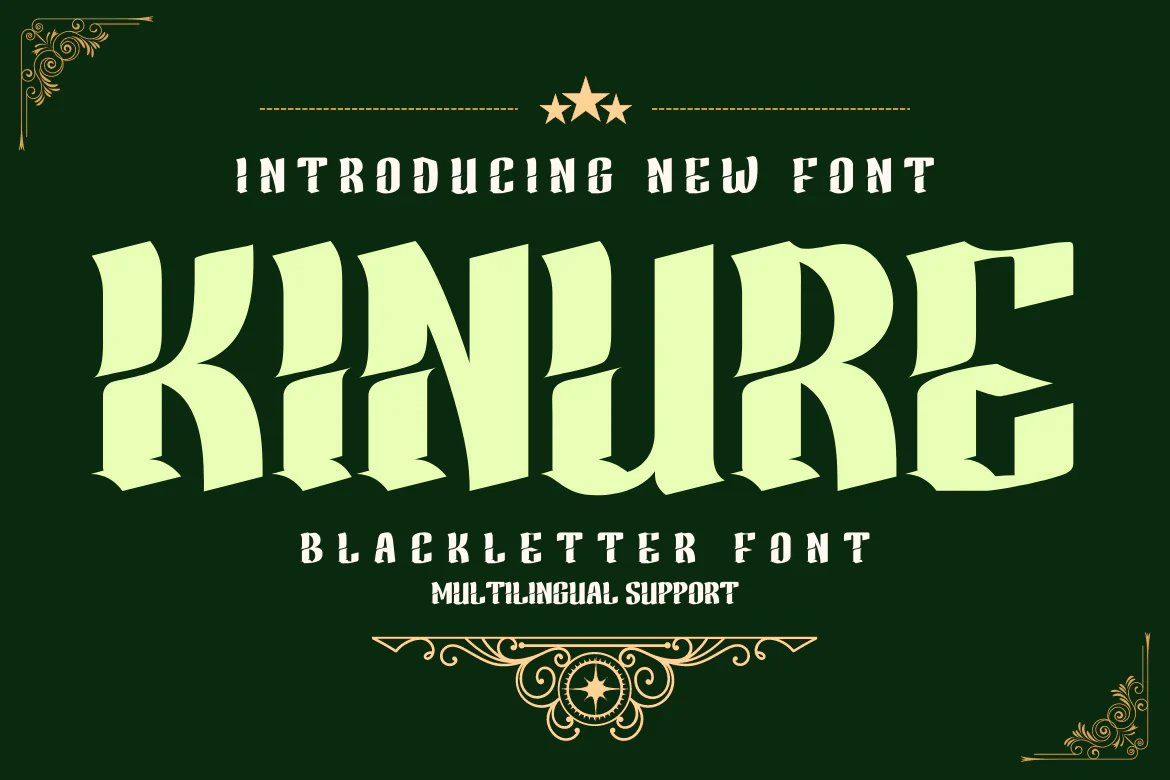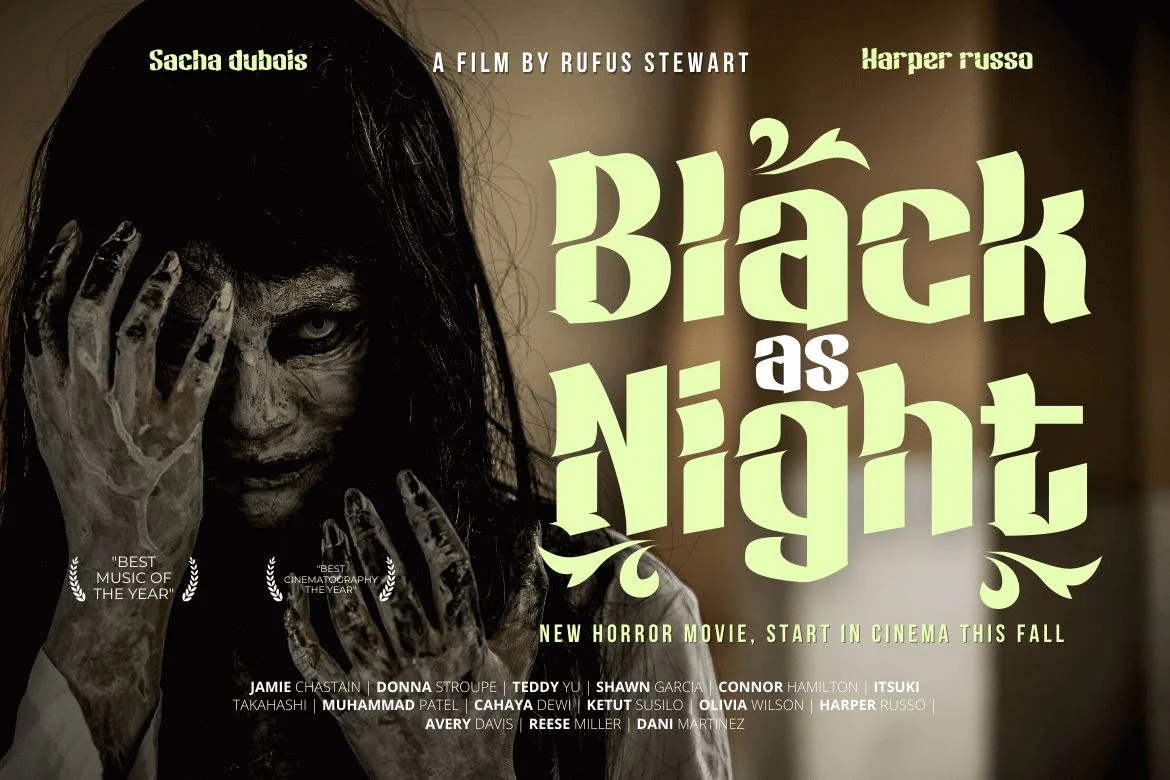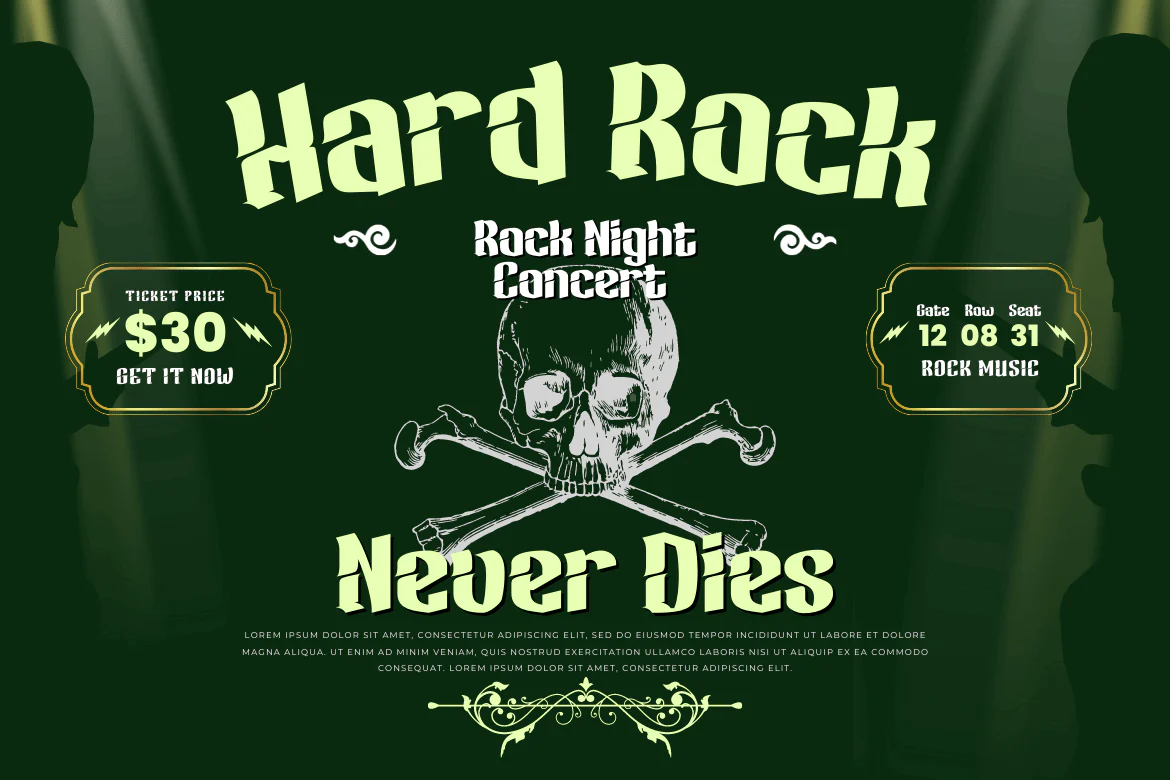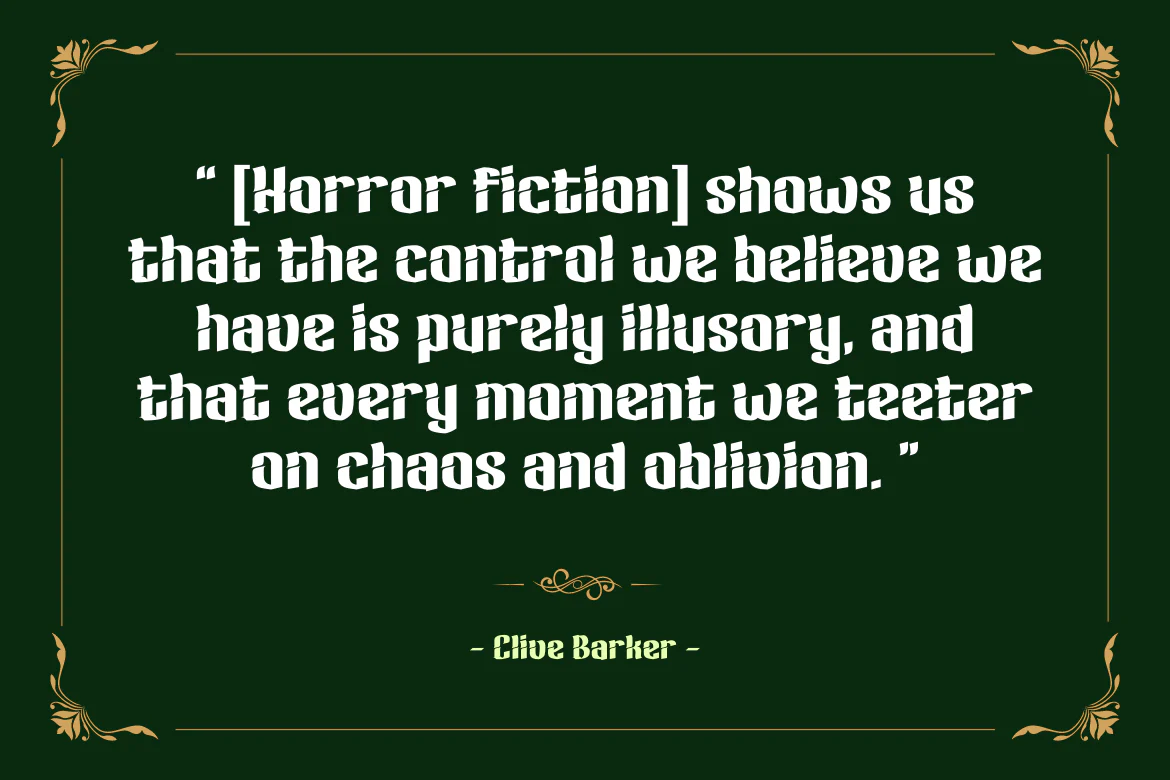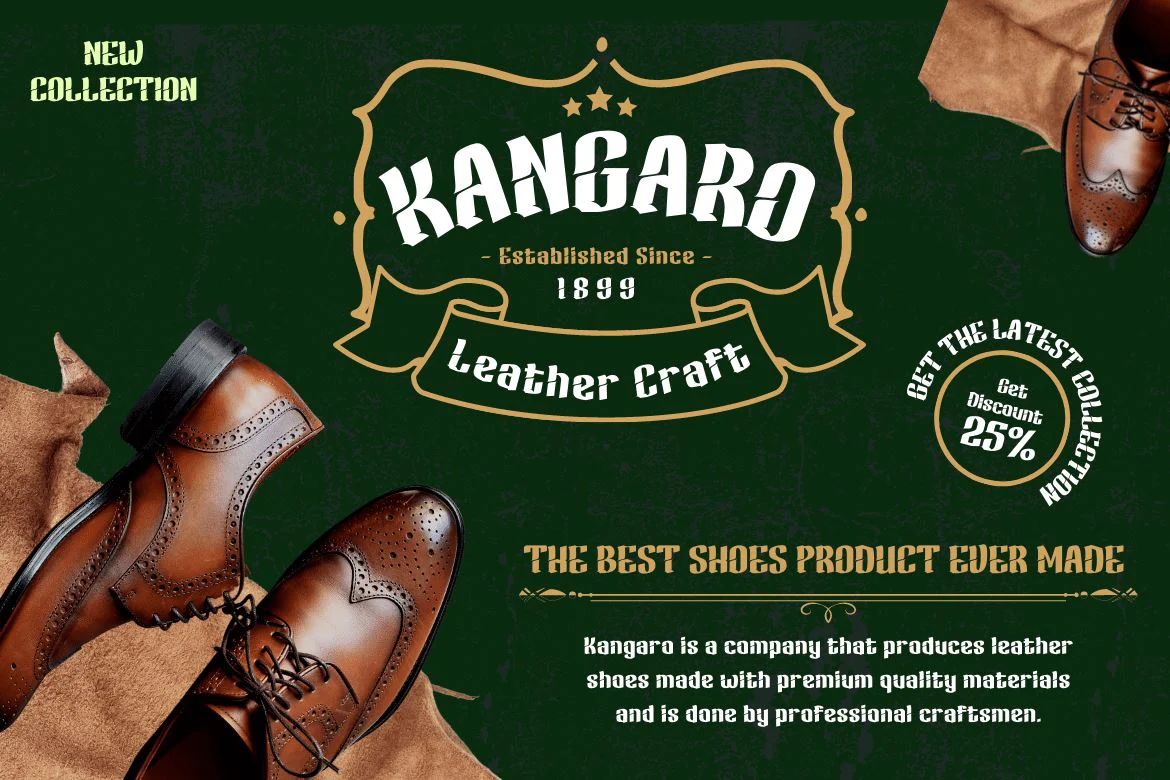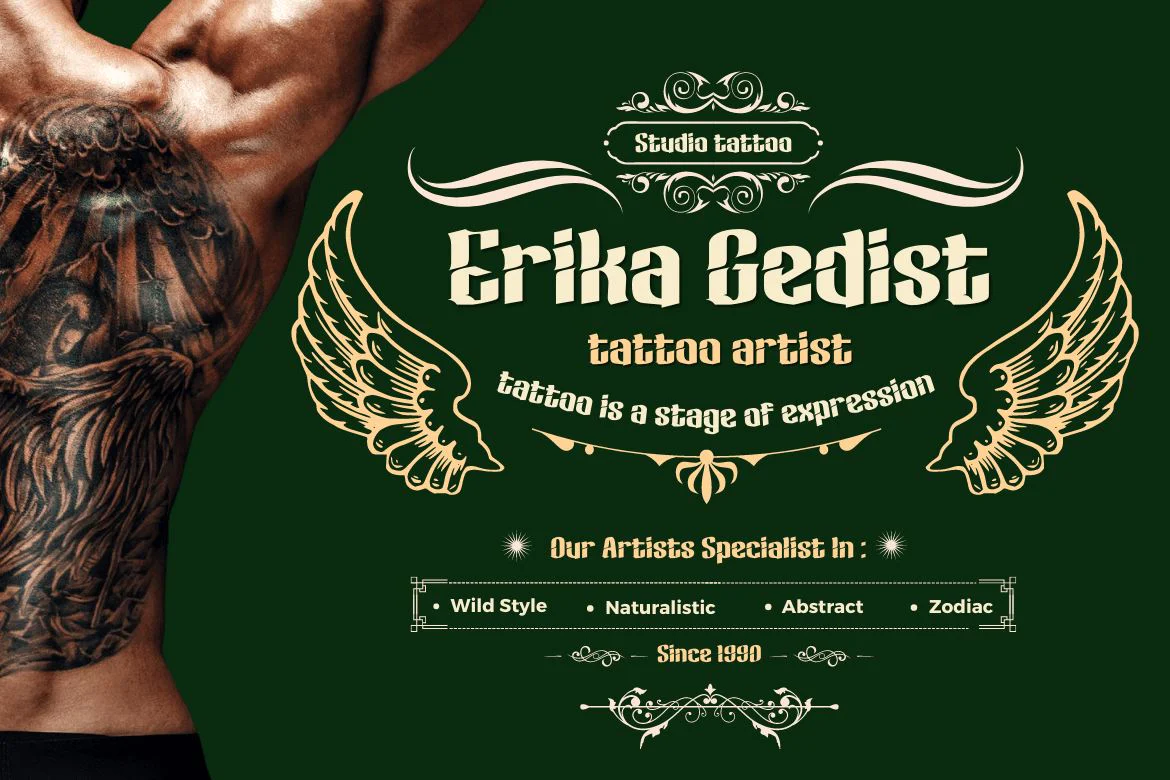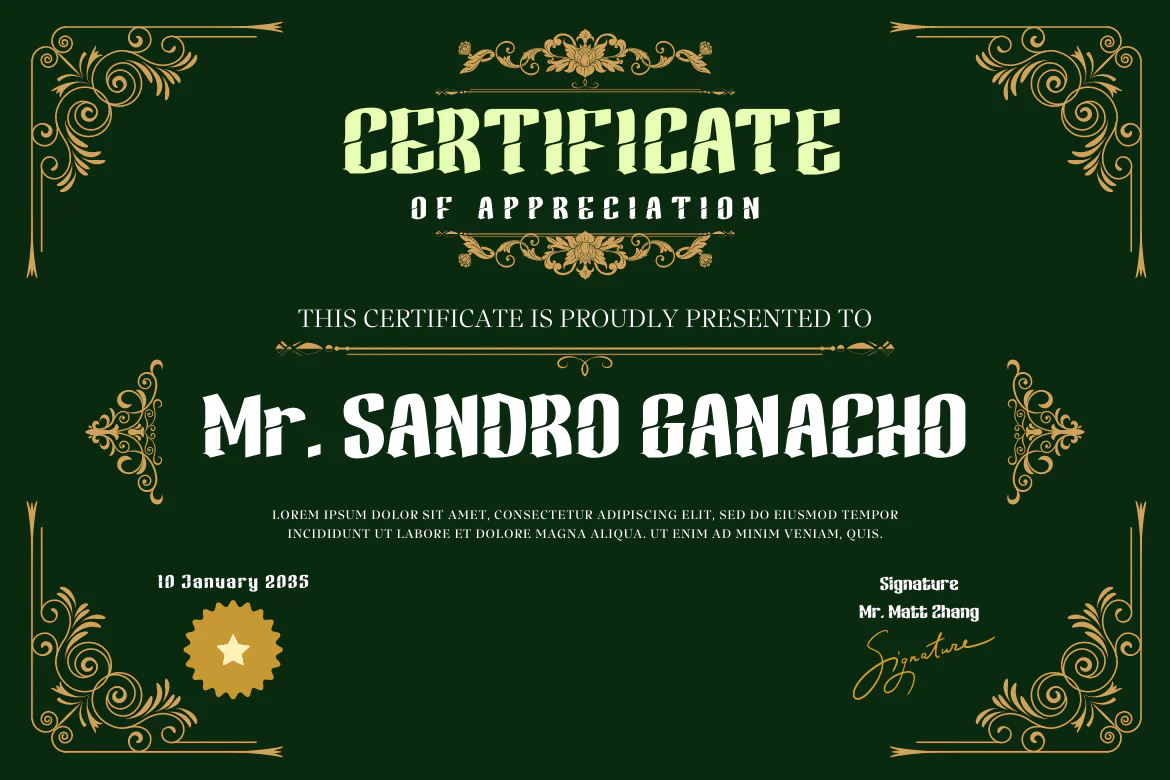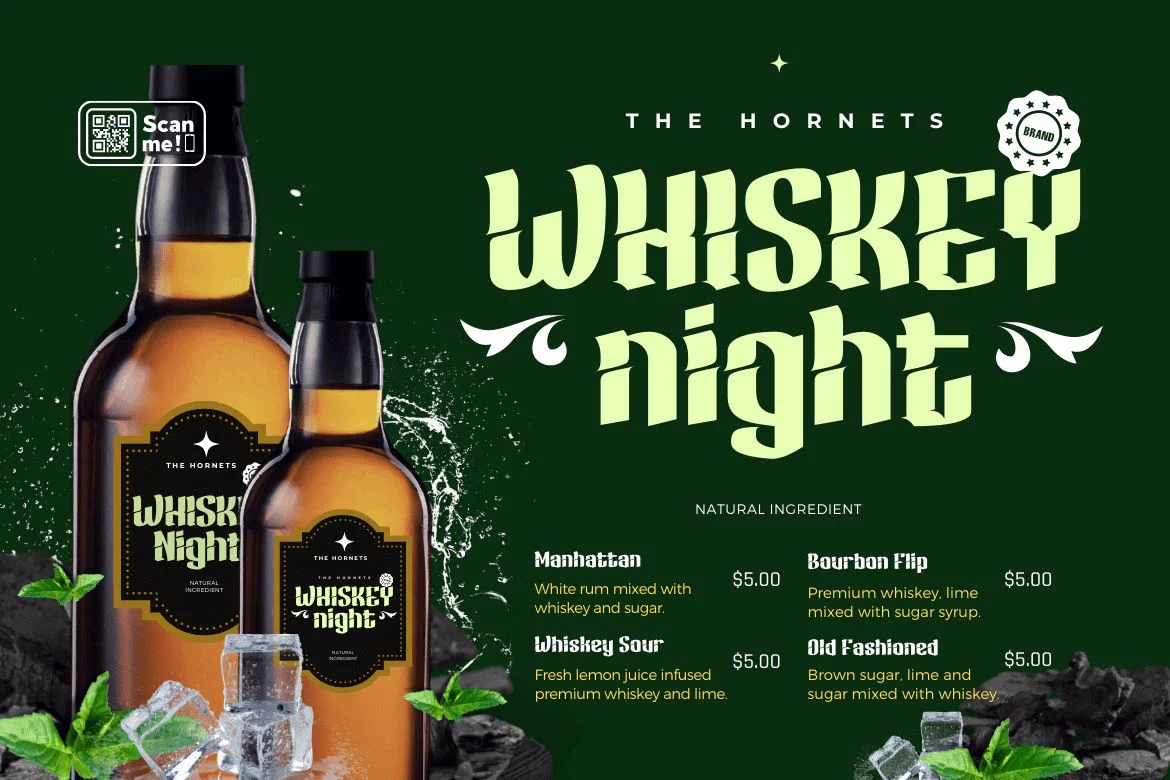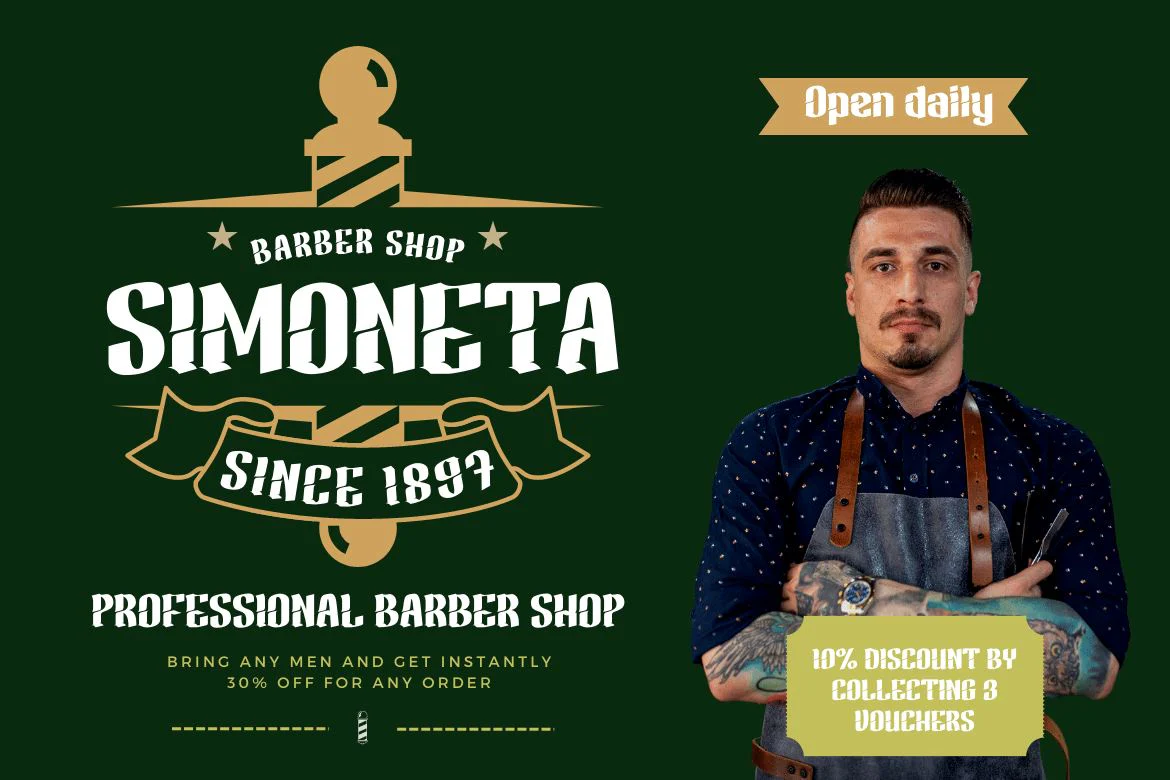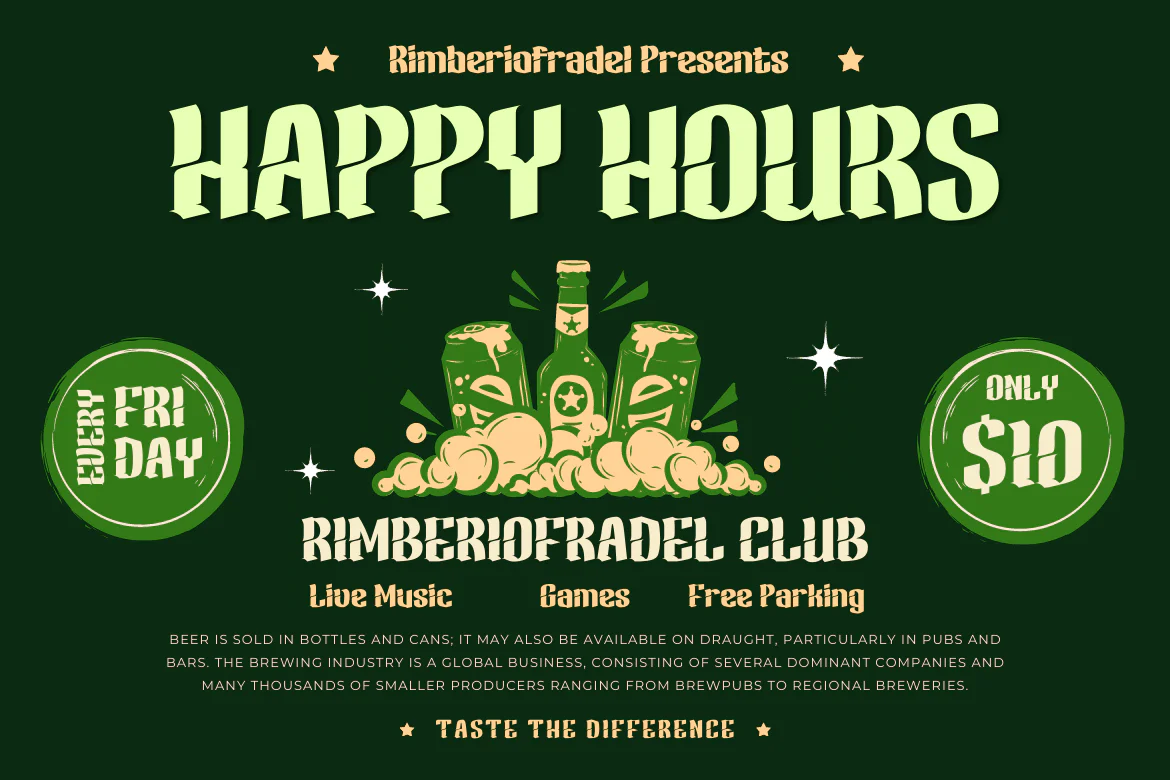
KINURE Blackletter Font
Look no further KINURE from Blackletter for the perfect Gothic font! This is a professional-grade font that you should use to design Labels, Retro, Stamps, Badges, Oktoberfest Posters, or anything else. It’s perfect for any kind of project that needs a bit of a gothic touch. Plus, it comes in a variety of beautiful, harmonized shapes so you can use the perfect word for your project.
Whether you’re looking for a font for your logo, label, or badge, or you’re looking for a font for your latest music video or movie, KINURE Blackletter is the way to go!
Look no further KINURE from Blackletter for the perfect Gothic font! This is a professional-grade font that you should use to design Labels, Retro, Stamps, Badges, Oktoberfest Posters, or anything else. It’s perfect for any kind of project that needs a bit of a gothic touch. Plus, it comes in a variety of beautiful, harmonized shapes so you can use the perfect word for your project.
Whether you’re looking for a font for your logo, label, or badge, or you’re looking for a font for your latest music video or movie, KINURE Blackletter is the way to go!